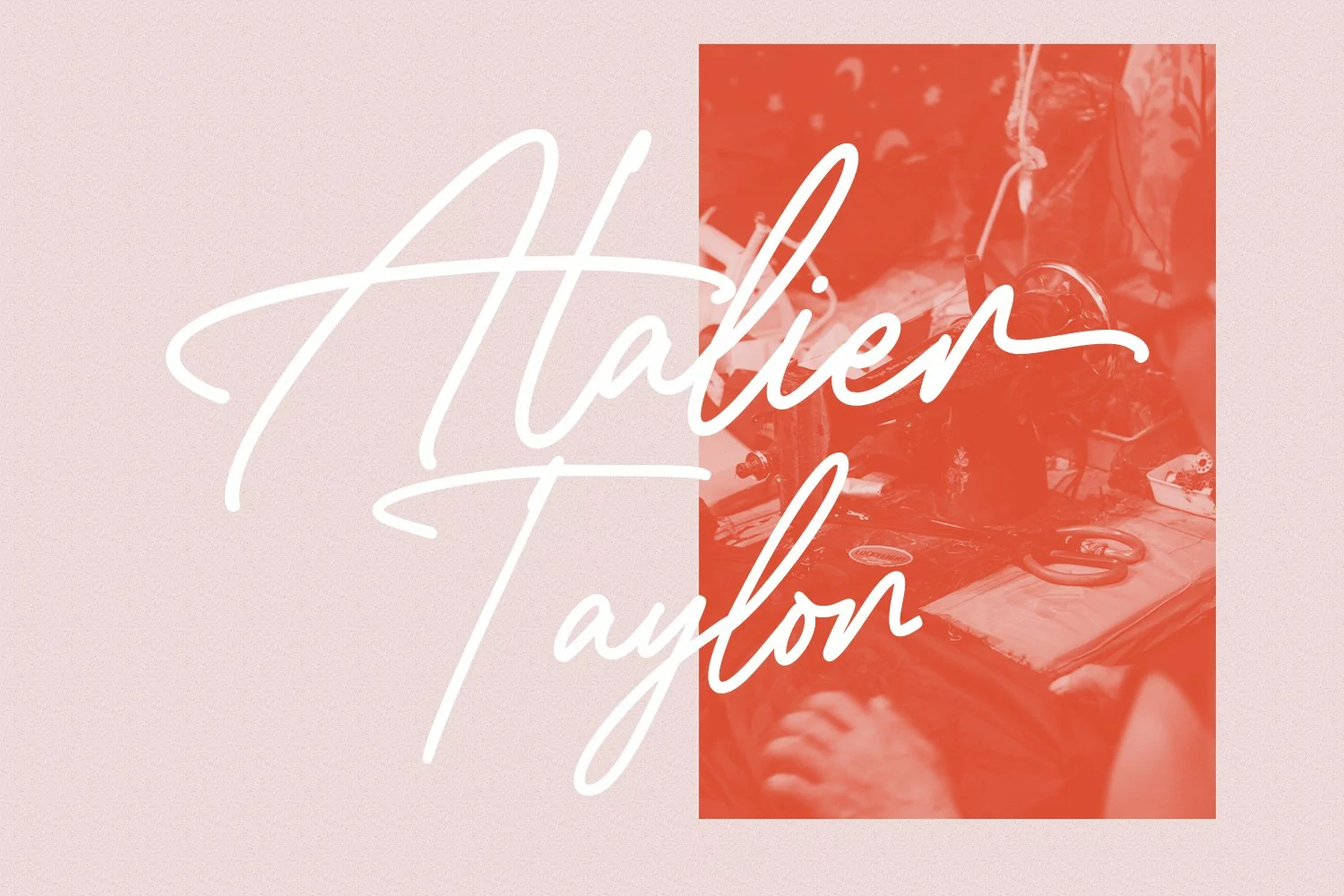
Danny Fuller is an expressive freestyle signature script font. With regular mono-line consist stroke, fun character with a bit of ligatures and alternates. To give you an extra creative work. Danny Fuller font support multilingual more than 100+ language. This font is good for logo design, Social media, Movie Titles, Books Titles, a short text even a long text letter and good for your secondary text font with sans or serif. Make a stunning work with Danny Fuller font.